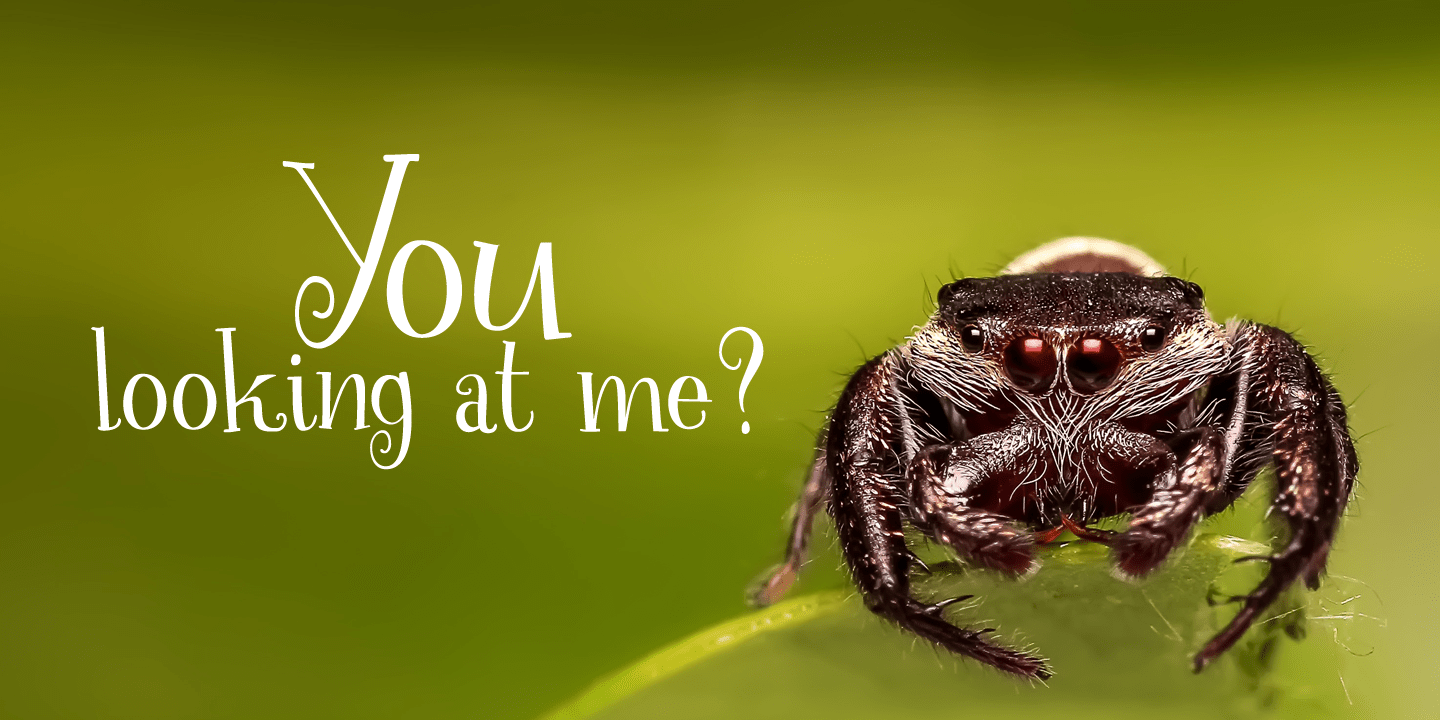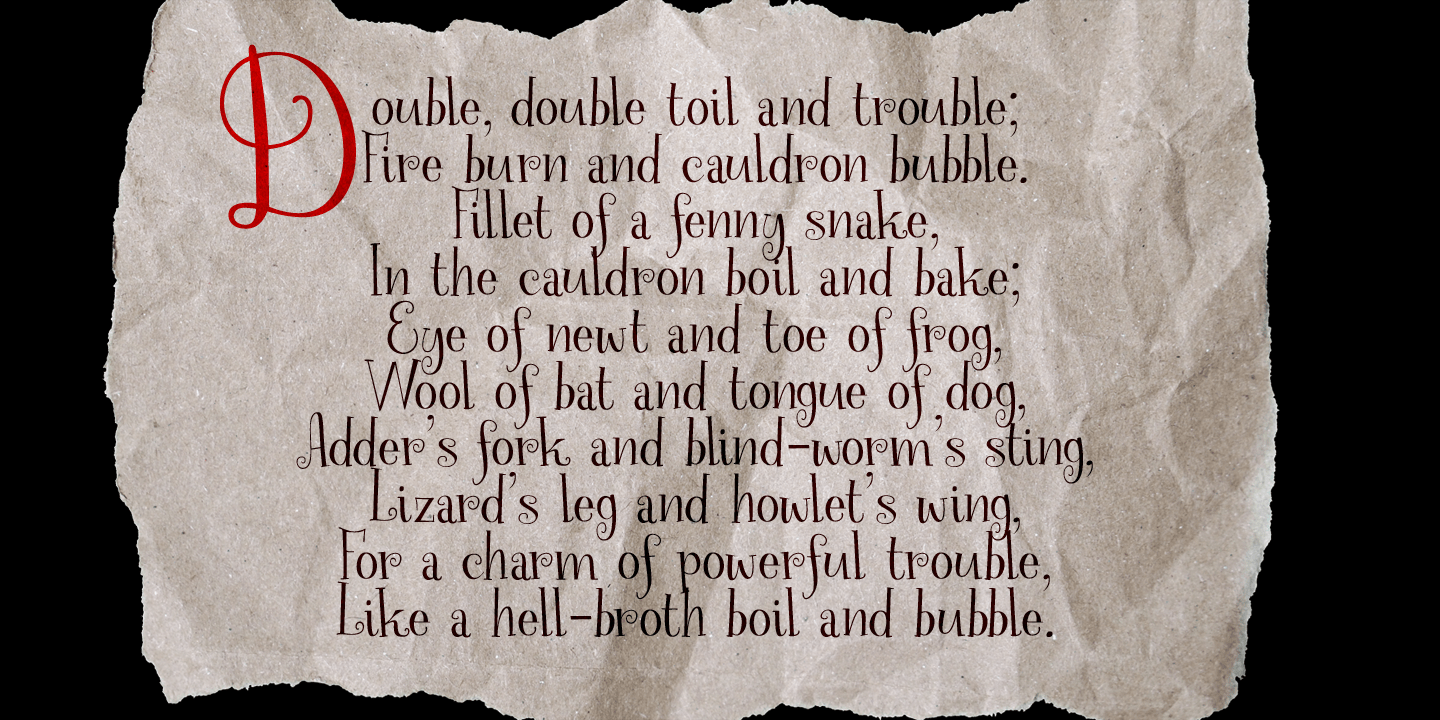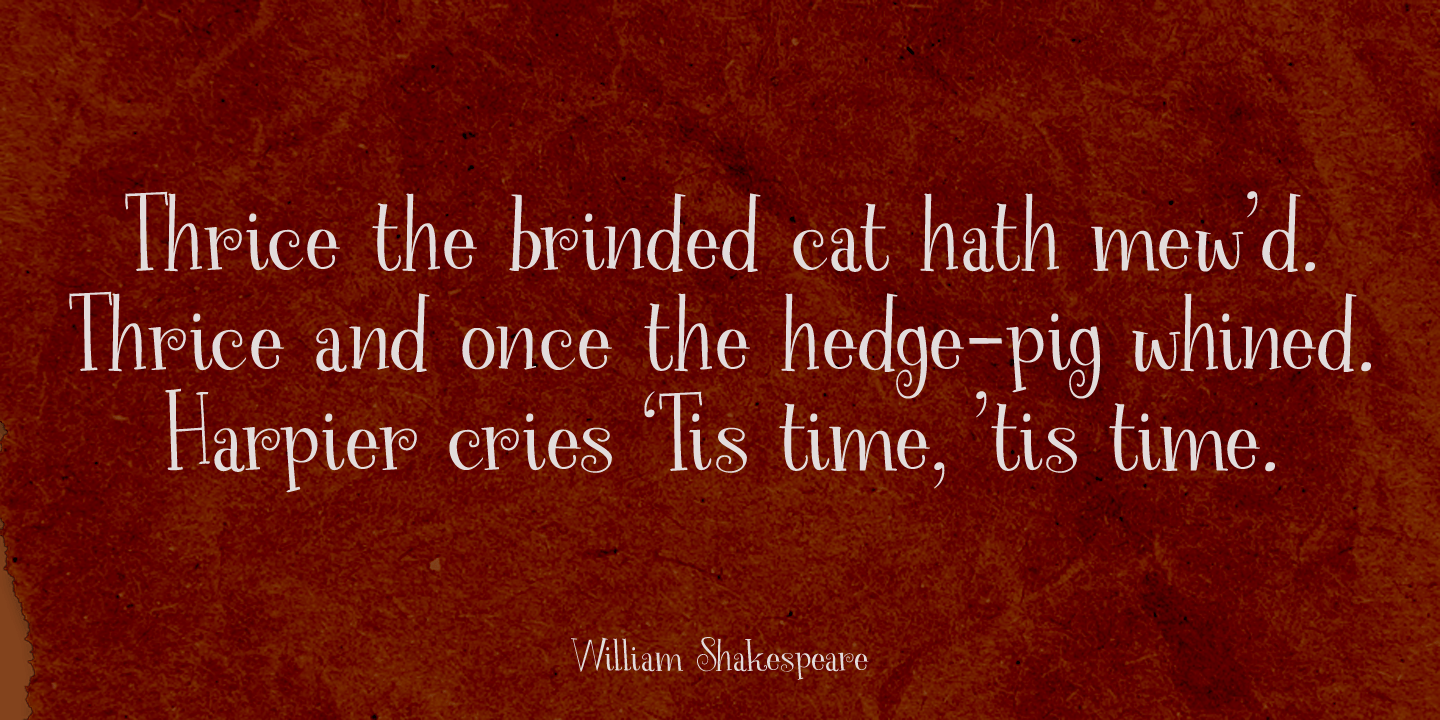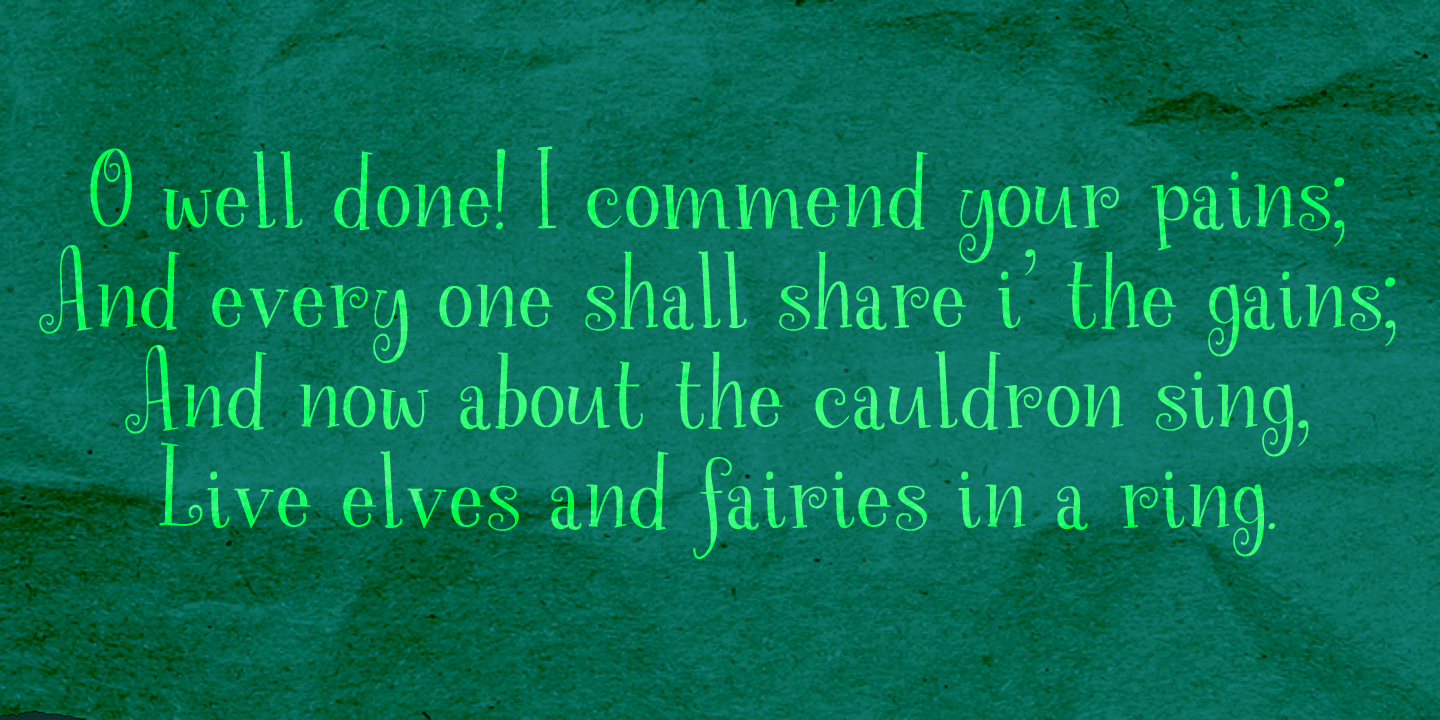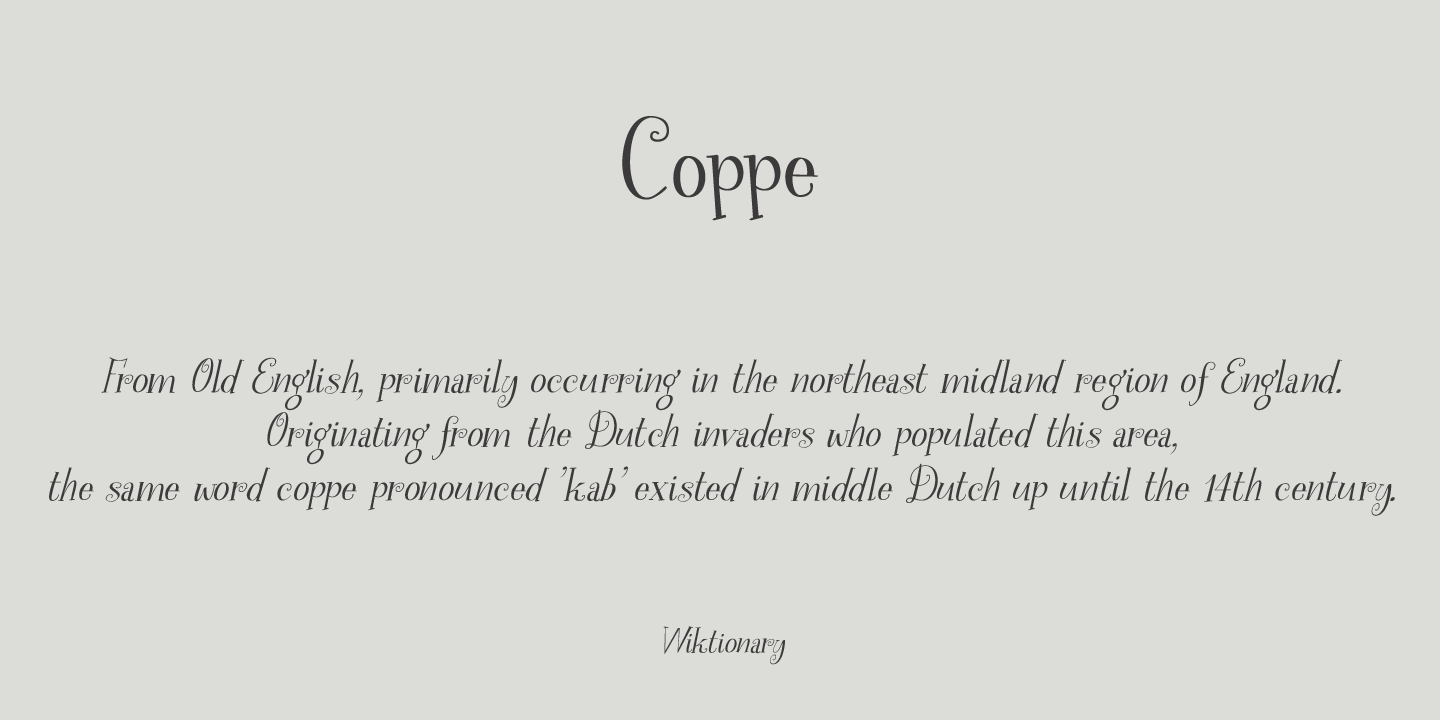
About Spinnenkop
Spinnenkop is an old Dutch word which means both \’spider? and (in dialect) cobweb. The word forms the basis for that English word: cobweb. Spinnenkop is a magical font. I didn\’t use witchcraft to create it, but when it was finished, it reminded me of…